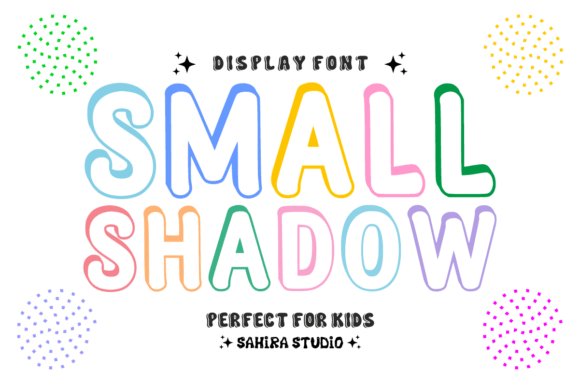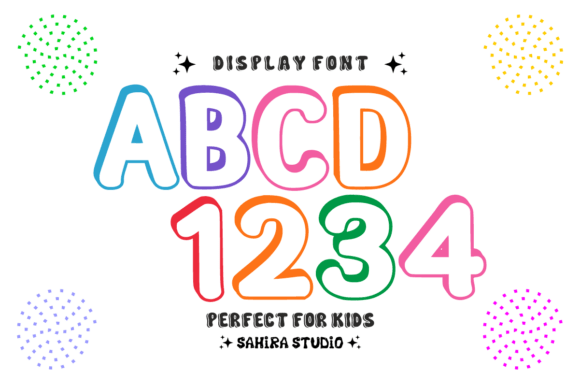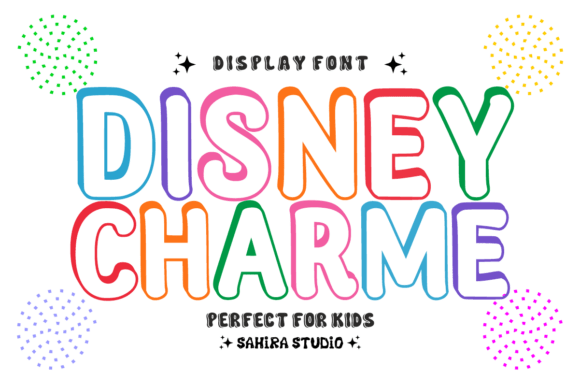
Introduction to Outline Shadow Font
Have you ever been scrolling through social media and stumbled upon a beautifully designed post that immediately catches your eye? For many of us, this moment sparks a desire to create something equally captivating. Perhaps you’re a designer looking to elevate your next creative project, or a small business owner seeking to rebrand your product labels. Whatever your goal, you’re in luck because we’re about to dive into the world of a delightful font that’s sure to make your designs stand out – the Outline Shadow Font.
This charming font features soft, pastel colors and a unique outline-style design that adds a subtle 3D effect, making it perfect for a wide range of applications, from kid-friendly designs to social media posts. With its high-quality design and transparent background, the Outline Shadow Font is a valuable resource for any designer looking to add a touch of whimsy to their next project.
Key Features of Outline Shadow Font
- Unique Design Resource: Outline Shadow Font is a creative and modern font designed to add a touch of elegance to any project.
- Perfect for Creative Projects: Ideal for designers, artists, and writers looking to add a unique touch to their projects, from logos to posters and more.
Honest Review: Outline Shadow Font
I recently stumbled upon the Outline Shadow Font and was excited to give it a try in my next creative project. The first thing that caught my attention was the high quality of the font, with crisp lines and a clear outline. The transparent background makes it easy to use and customize, which is a big plus for designers.
- ✨ High-quality font with crisp lines and clear outline
- ✨ Transparent background for easy customization
However, there are a few limitations to keep in mind. For one, the font may not be suitable for all types of designs, especially those with complex layouts. Additionally, the outline effect can sometimes get lost when used with busy backgrounds.
- ⚠️ May not be suitable for complex designs or busy backgrounds
- ⚠️ Outline effect can get lost with certain background designs
Overall, I’m impressed with the Outline Shadow Font. It’s a great addition to any design resource and can add a unique touch to creative projects. While it may have some limitations, it’s definitely worth trying out.
Outline Shadow Font
As a versatile design resource, Outline Shadow Font offers endless possibilities for creative projects. With a high-quality, free download, you can elevate your designs with a unique touch.
Getting the Most Out of Outline Shadow Font
For optimal results, use Outline Shadow Font on a transparent background to create a seamless design. Experiment with different font sizes, colors, and shadow effects to achieve a unique look. You can also combine Outline Shadow Font with other design elements to create a visually appealing design.
Common Use Cases for Outline Shadow Font
Outline Shadow Font is perfect for creating eye-catching headlines, logos, and titles. It’s also ideal for use in social media graphics, presentations, and other creative projects where a unique font is needed.